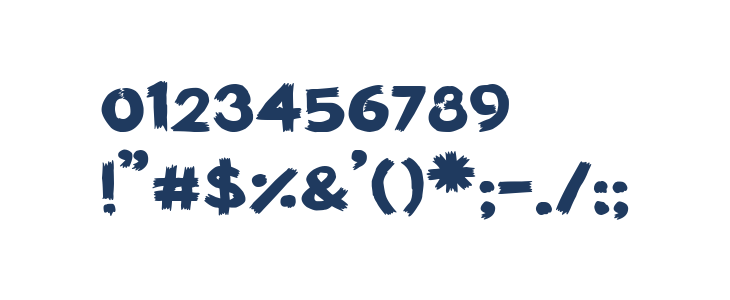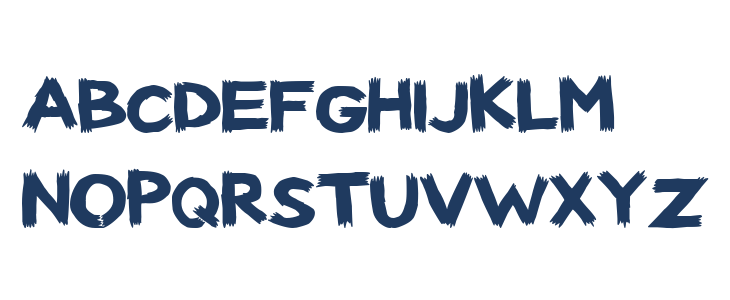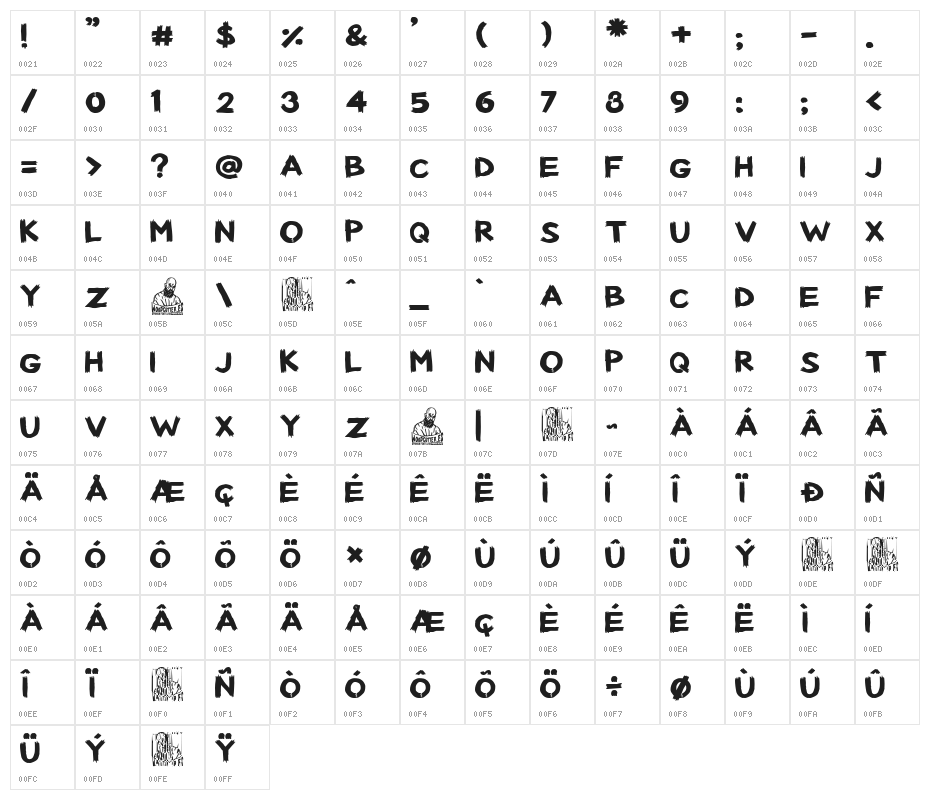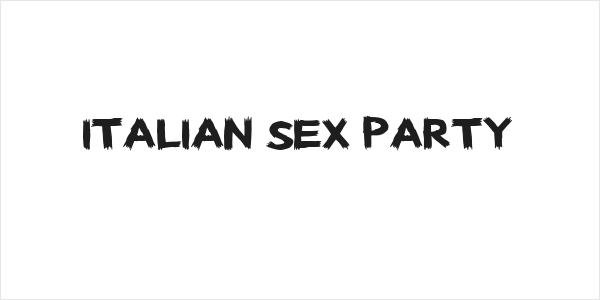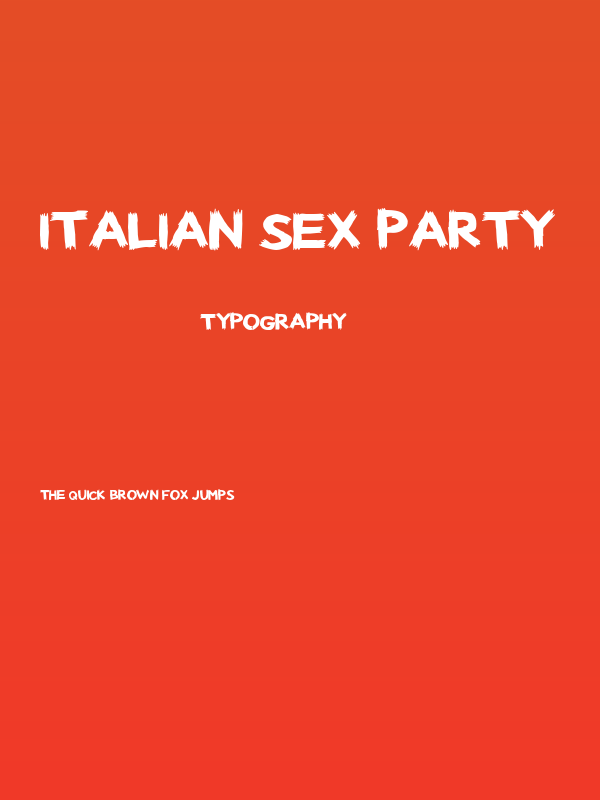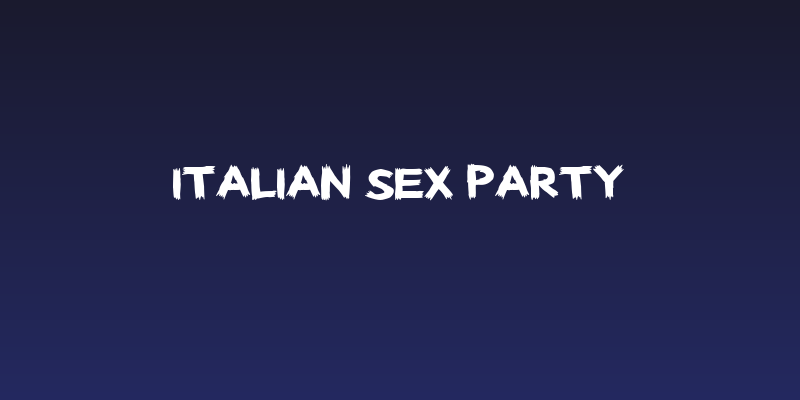
Italian Sex Party Font
Italian Sex Party Description
A bold, brush-stroke style font with jagged, energetic edges and a hand-drawn appearance, featuring uppercase letters, numerals, and punctuation with a dynamic, expressive look.
| Overall Style | Decorative, Energetic, Hand-drawn |
| Proposed Projects | Posters, music album covers, event flyers, comic titles, edgy branding. |